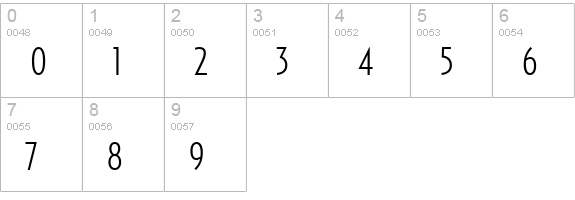
RelayComp-Light Font Details
RelayComp-Light is a refined, elegant variant in the RelayComp typeface family \xE2\x80\x94 well suited to elegant body text, refined sub-headings, and luxury branding.
RelayComp-Light font is the epitome of elegance and simplicity. With its clean lines and delicate curves, this font exudes a sense of modern sophistication that is perfect for any design project. Whether you're creating a sleek logo, designing a professional website, or crafting eye-catching advertisements, RelayComp-Light font will elevate your work to the next level. One of the best parts about RelayComp-Light font is that it is available for free! That's right, you can download this incredible font at no cost from FontsMarket.com. This means that you can access and use this font in all of your personal and commercial projects without breaking the bank. RelayComp-Light font is not only visually stunning, but it also offers excellent legibility. Its balanced letterforms and generous spacing make it easy to read, even at smaller sizes. This makes it a versatile choice for a wide range of applications, from print materials like brochures and magazines to digital content such as websites and social media graphics. The versatility of RelayComp-Light font extends to its extensive character set. With a range of uppercase and lowercase letters, numbers, punctuation marks, and special characters, this font allows you to fully express your creativity and add a unique touch to your designs. Not only is RelayComp-Light font visually appealing and versatile, but it is also easy to install and use. Once you've downloaded the font, simply install it on your computer or device, and it will be ready to use in your favorite design software. So why wait? Take advantage of the amazing opportunity to enhance your designs with RelayComp-Light font, freely available for download at FontsMarket.com. Unleash your creativity and bring your projects to life with this elegant and versatile font.